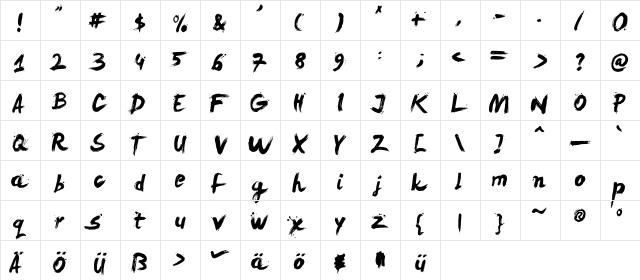
LeviReBrushed Regular Font Preview
LeviReBrushed Regular
LeviReBrushed Regular Font Details
Design Context for LeviReBrushed Typeface
LeviReBrushed brings a calligraphic fluidity to the page — its connecting strokes and expressive curves give it an unmistakably human quality.
Font Pairing: Combine LeviReBrushed with a simple geometric sans for maximum contrast — the tension between flowing curves and clean structure is a classic typographic pairing.
Pro Tip: Use LeviReBrushed for short runs of text — names, titles, or taglines. Extended body copy in script faces tires the eye quickly.